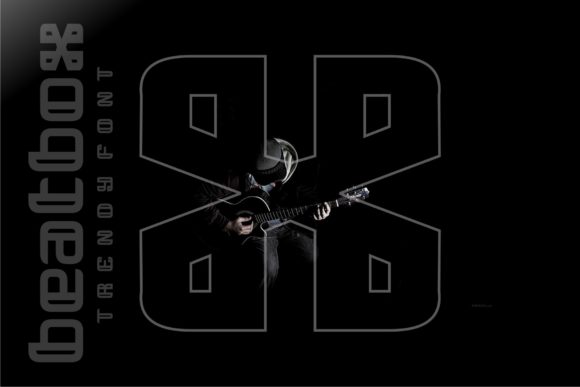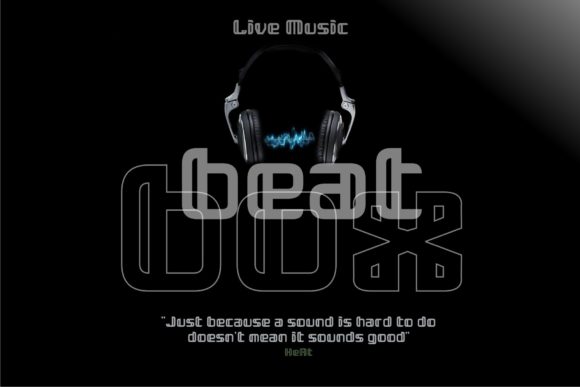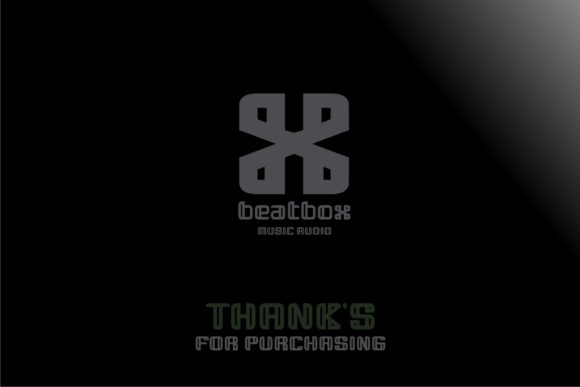
Introducing Beatbox Font: The Ultimate Urban Display Font
Are you tired of using the same old fonts in your designs? Do you want to add a touch of urban grit and sporty flair to your creations? Look no further than Beatbox Font, the trendy and eye-catching display font that’s taking the design world by storm.
What is Beatbox Font?
Beatbox Font is a modern, urban, and sporty display font that’s designed to turn any design idea into an eye-catcher. With its bold and edgy lettering style, Beatbox Font is perfect for designers and crafters who want to add a touch of street style to their work.
Key Features of Beatbox Font
- Trendy and Urban Design: Beatbox Font features a modern and trendy design that’s perfect for creating eye-catching headlines, titles, and slogans.
- Sporty Flair: With its bold and edgy lettering style, Beatbox Font is perfect for sports-related designs, such as jerseys, posters, and flyers.
- Highly Versatile: Beatbox Font can be used for a wide range of design projects, from logos and branding to social media graphics and more.
- Easily Readable: Despite its bold and edgy design, Beatbox Font is surprisingly easy to read, making it perfect for use in headlines, titles, and other display text.
Who is Beatbox Font for?
Beatbox Font is perfect for designers, crafters, and artists who want to add a touch of urban grit and sporty flair to their work. This font is ideal for:
- Graphic Designers: Beatbox Font is perfect for graphic designers who want to create eye-catching logos, branding, and advertising materials.
- Crafters and Artists: Beatbox Font is great for crafters and artists who want to add a touch of urban style to their handmade projects, such as journals, scrapbook pages, and more.
- Sports Teams and Organizations: Beatbox Font is perfect for sports teams and organizations who want to create bold and eye-catching jerseys, posters, and flyers.
Here are a few tips for using Beatbox Font:
- Use it for Headlines and Titles: Beatbox Font is perfect for use in headlines and titles, where its bold and edgy design can really make an impact.
- Experiment with Colors and Textures: Beatbox Font looks great in a variety of colors and textures. Experiment with different combinations to find the one that works best for your design.
- Pair it with Other Fonts: Beatbox Font can be paired with other fonts to create a unique and eye-catching design. Try pairing it with a clean and simple sans-serif font for a bold and modern look.
Beatbox Font is a trendy, urban, and sporty display font that’s perfect for designers and crafters who want to add a touch of street style to their work. With its bold and edgy lettering style, Beatbox Font is sure to turn any design idea into an eye-catcher. So why wait? Download Beatbox Font today and start creating your own urban masterpieces!